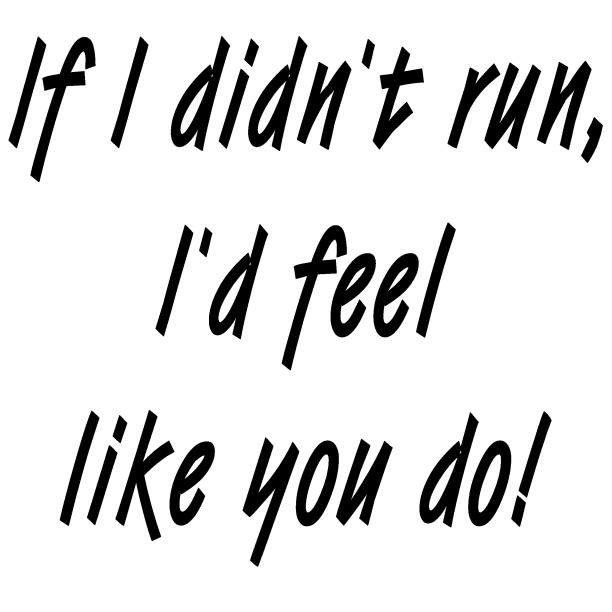
First time I asked this, WHAT is this font
:help: I was told this was "brush stroke" but I can not find anything like it anywhere, what do you think it is? and where may I find it?
This is driving me nuts too, now that I can finally see the image.
To me it looked a lot like the Gerber font Marker...close but no cigar.
I know I have this on my system somewhere but I can't find it for the life of me.
What The Font was of no help either....just like me!